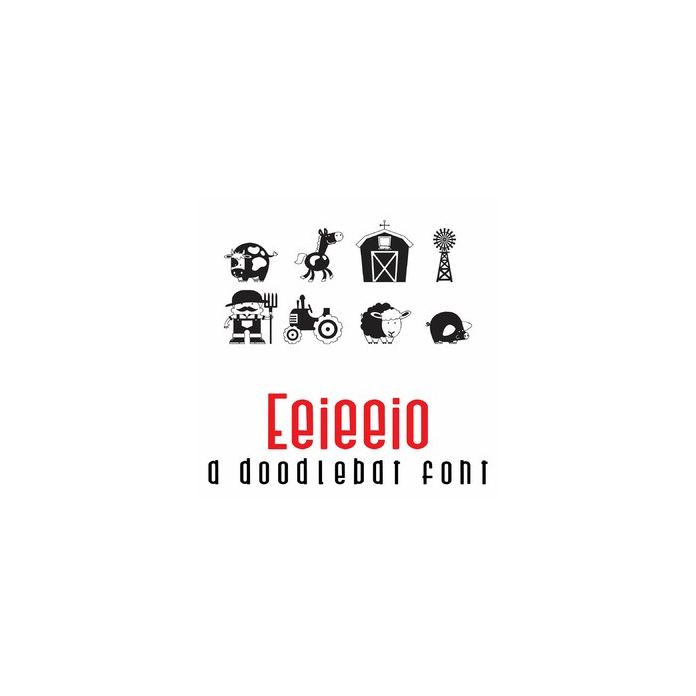
Eeieeio Doodlebat Font
This fun doodlebat font features 26 farm animals and items. Perfect for cards, crafts, gifts, decor, scrap book pages, planner stickers and more!